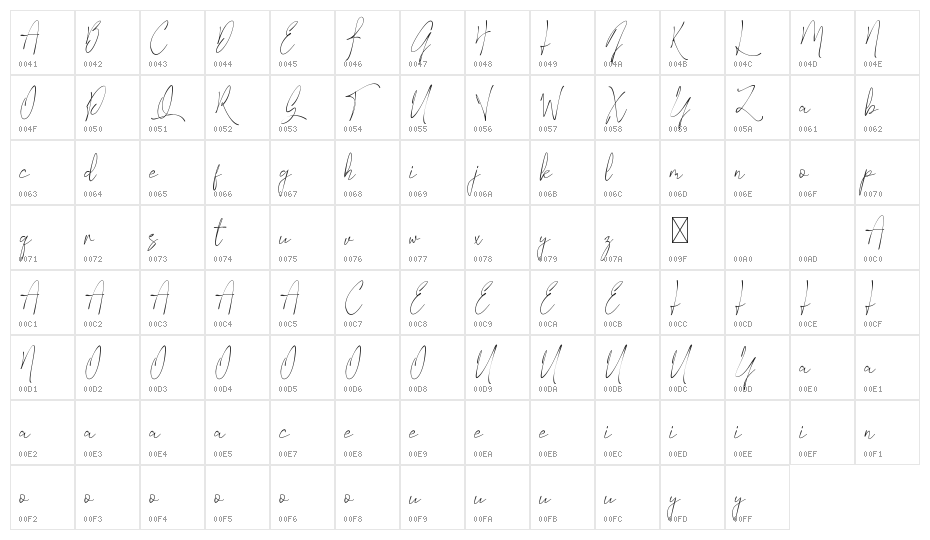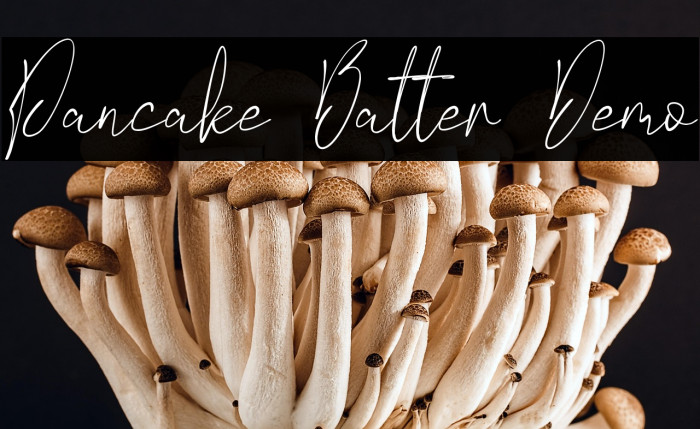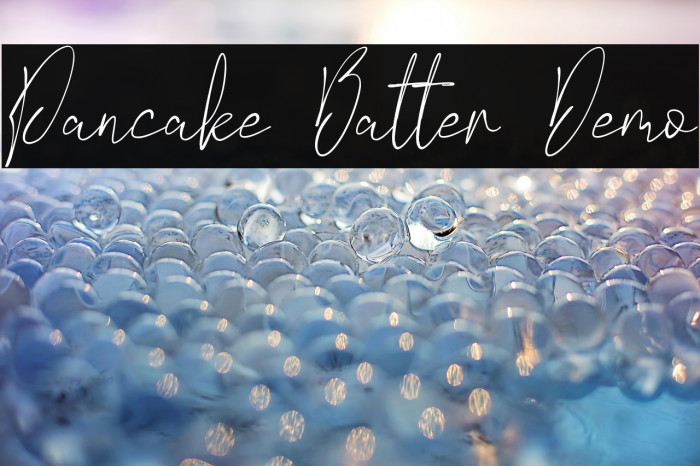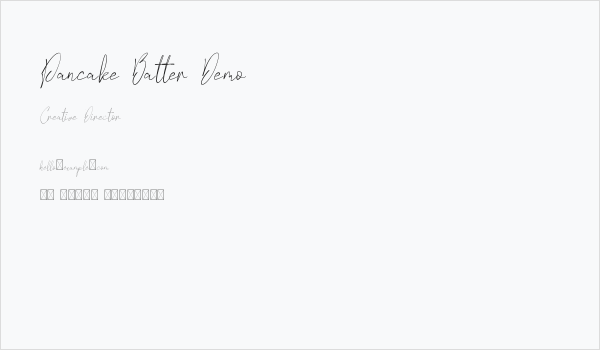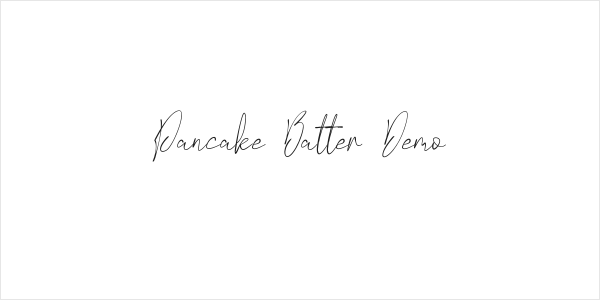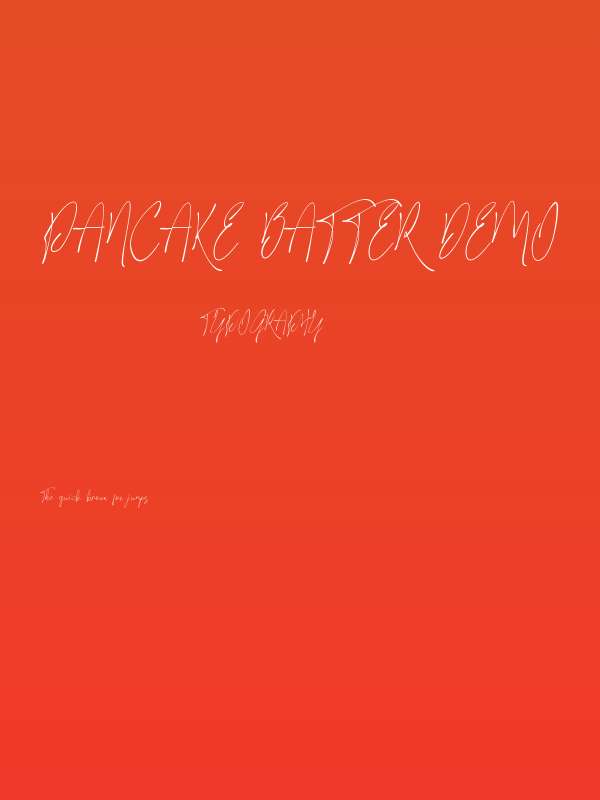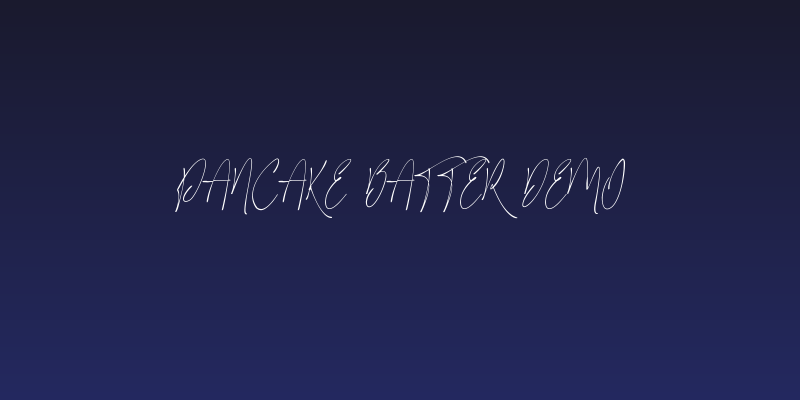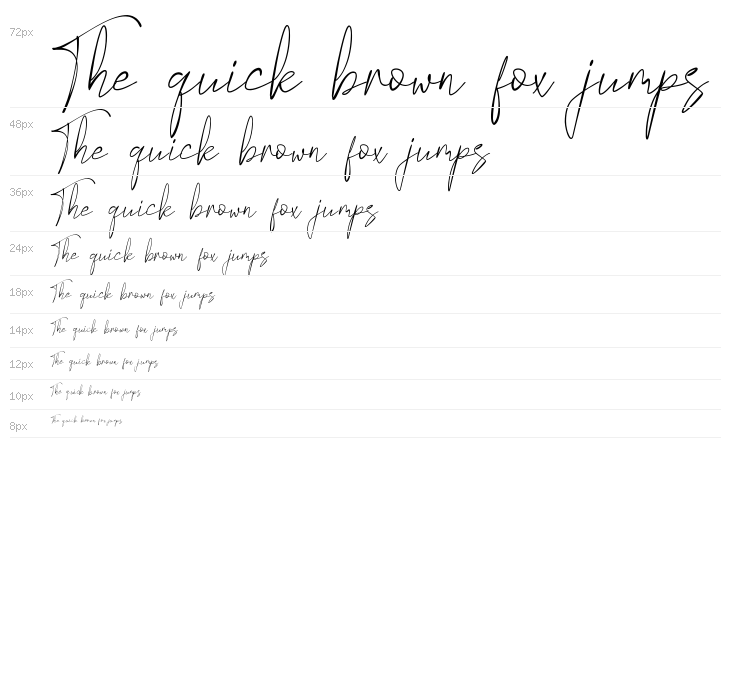
Pancake Batter Demo Font
Pancake Batter Demo Description
This font exhibits a fluid, handwritten style that combines elegance with a touch of casual flair. The uppercase letters are tall and slender, with sweeping curves and loops that give them a dynamic and lively appearance. The lowercase letters maintain a consistent flow, with smooth connections between each character, enhancing the script-like quality. The overall design is airy and light, with a delicate balance between the thick and thin strokes, creating a medium contrast. This font is perfect for projects that require a personal touch, such as invitations, greeting cards, or branding materials that aim to convey sophistication and approachability.
| Overall Style | Elegant, Casual |
| Use Case | Invitations, Greeting cards, Branding |
| Proposed Projects | Ideal for wedding invitations, personal branding, greeting cards, and elegant packaging. |